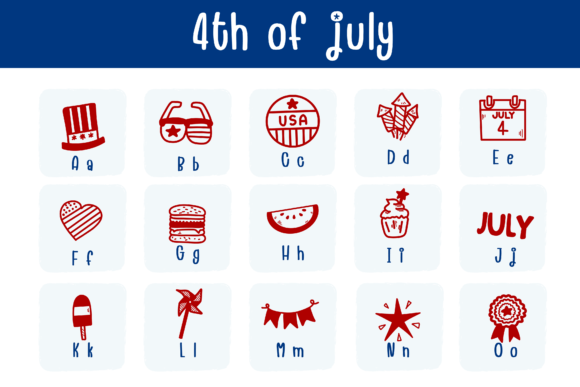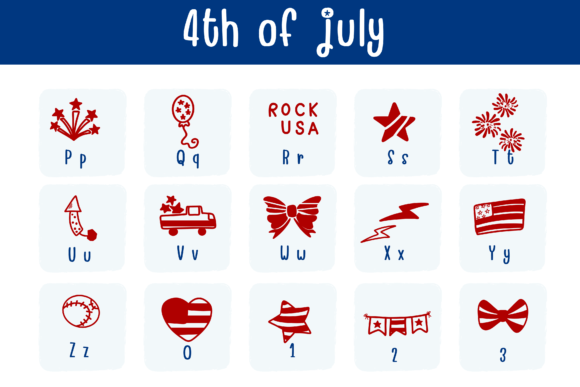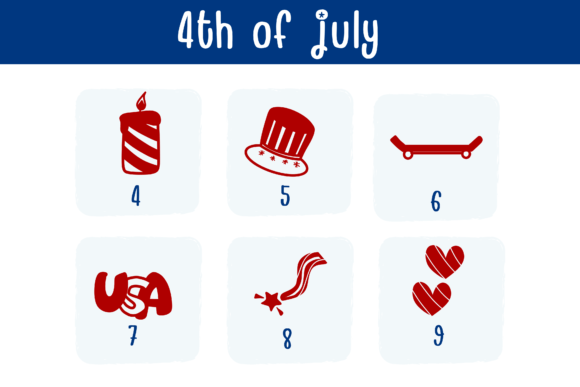
Introducing the 4th of July Font: Elevate Your Designs with a Unique Sketch Style
Are you tired of using the same old fonts for your creative projects? Look no further! We’re excited to introduce the “4th of July” font, a dingbats font that adds a touch of personality to your designs. With its unique sketch style, this font is perfect for designers and crafters who want to make their work stand out.
What is the 4th of July Font?
The 4th of July font is a specially designed dingbats font that features a distinctive sketch style. Unlike traditional fonts, dingbats fonts are made up of symbols, shapes, and illustrations that can add a creative twist to your designs. The 4th of July font takes it to the next level with its hand-sketched aesthetic, giving your work a personal and artistic feel.
Perfect for Various Creative Projects
Whether you’re working on wedding invitations, DIY crafts, or decorative projects, the 4th of July font is an excellent choice. Its versatility makes it suitable for a wide range of applications, from logos and branding to social media graphics and more. The font’s unique style can add a touch of whimsy and personality to your designs, making them more engaging and memorable.
Key Features of the 4th of July Font
- Unique Sketch Style: The 4th of July font boasts a one-of-a-kind sketch style that sets it apart from other dingbats fonts.
- Hand-Drawn Illustrations: Each character and symbol is carefully hand-drawn, giving the font a personal and artistic feel.
- Versatile: The font can be used for a wide range of creative projects, from wedding invites to DIY crafts and decorative projects.
Inspiration for Your Designs
To get the most out of the 4th of July font, let’s explore some design ideas that showcase its unique style:
- Wedding Invitations: Create beautiful and personalized wedding invites with the 4th of July font. Use it to add a touch of elegance and sophistication to your designs.
- DIY Crafts: Add a creative twist to your DIY crafts, such as paper flowers, gift tags, or scrapbooking pages, with the 4th of July font.
- Decorative Projects: Use the font to create eye-catching decorative projects, such as posters, flyers, or social media graphics.
- Logos and Branding: Make your logos and branding stand out with the 4th of July font. Its unique style can help you establish a distinctive brand identity.